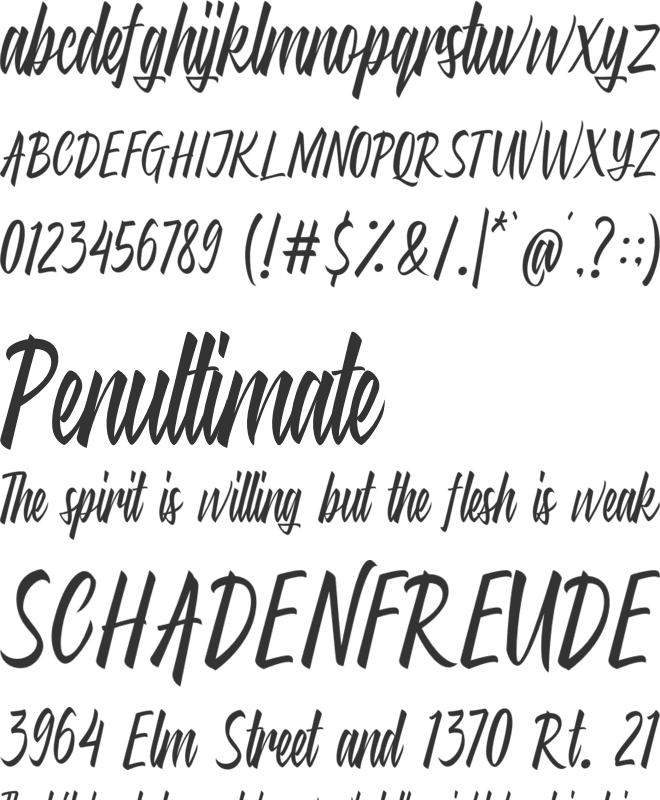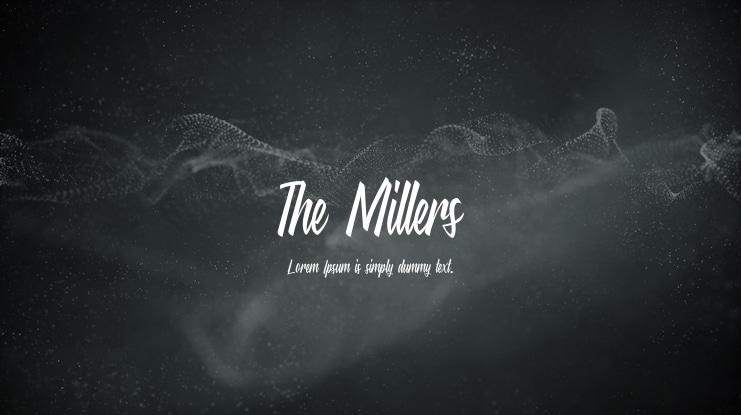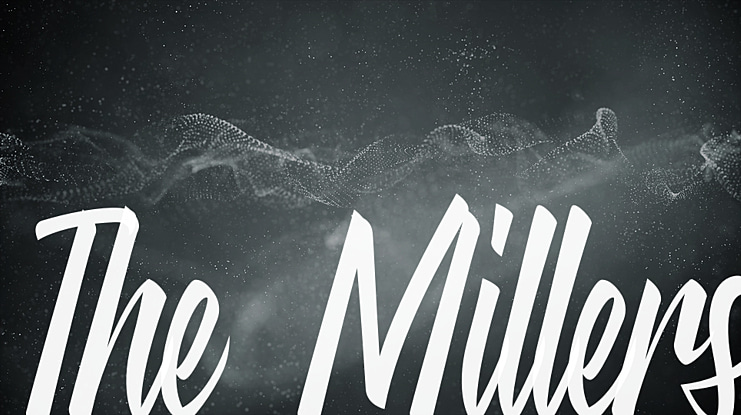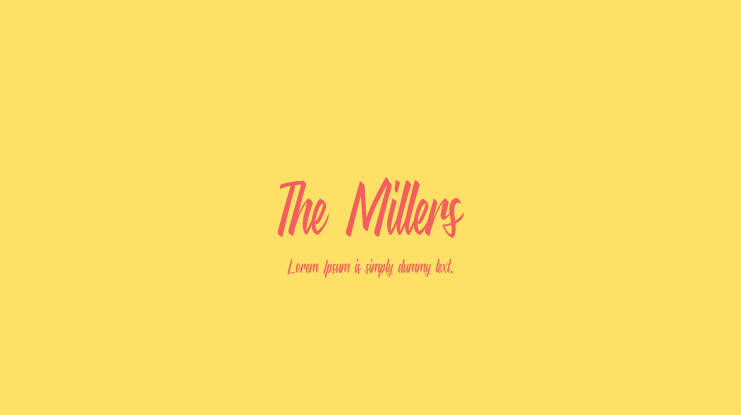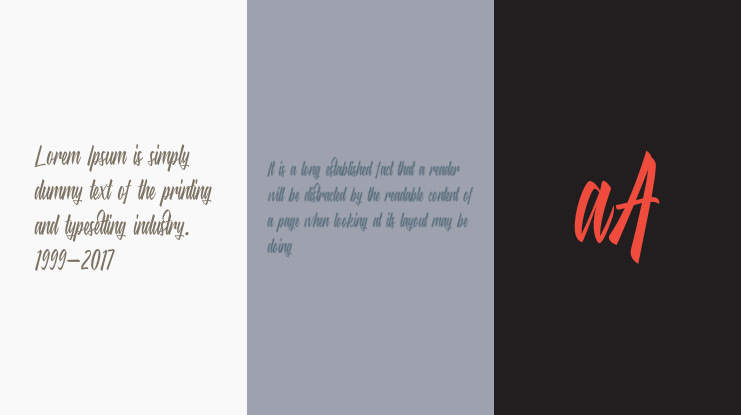
The Millers Font
The Miller's is a modern and casual script brush handwritten font. It’s casual charm makes it appear wonderfully down-to-earth, readable and, ultimately, incredibly versatile.Full Version Download Here :https://typefactory.co/product/the-millers-casual-brush-font/https://www.creativefabrica.com/product/the-millers/ref/501262/